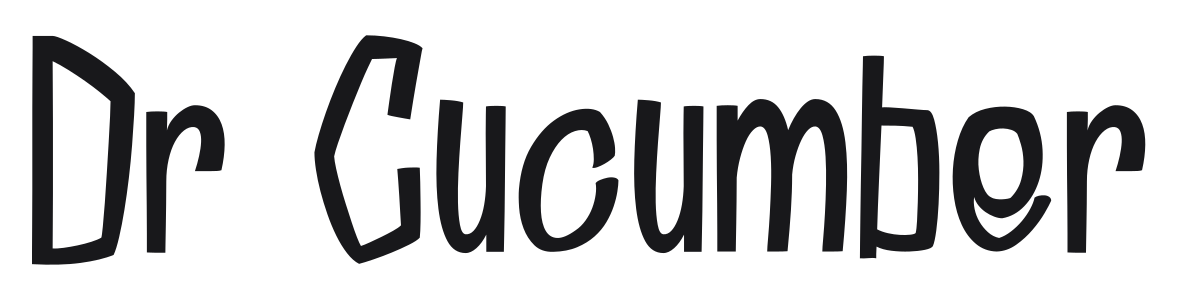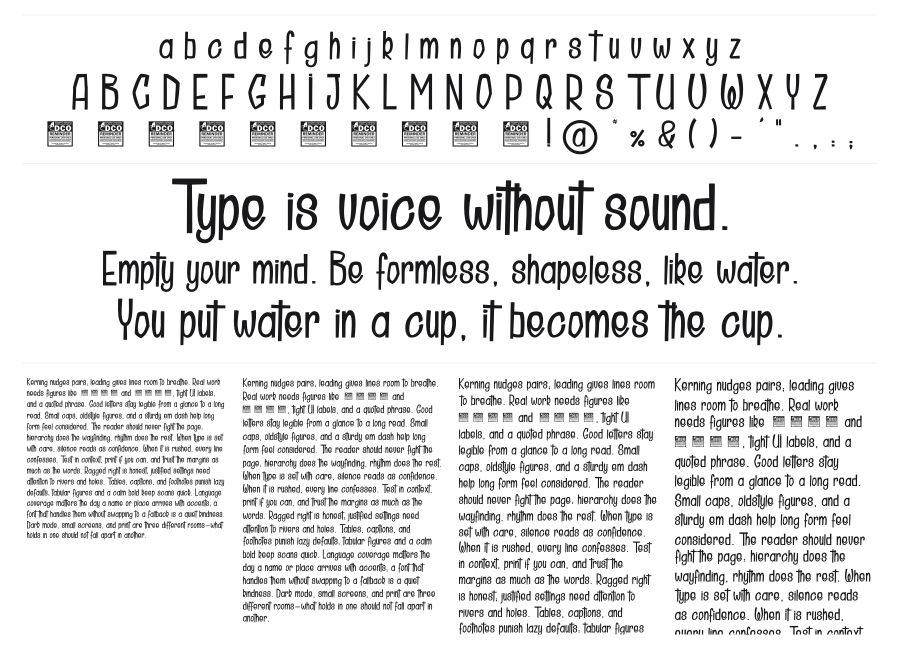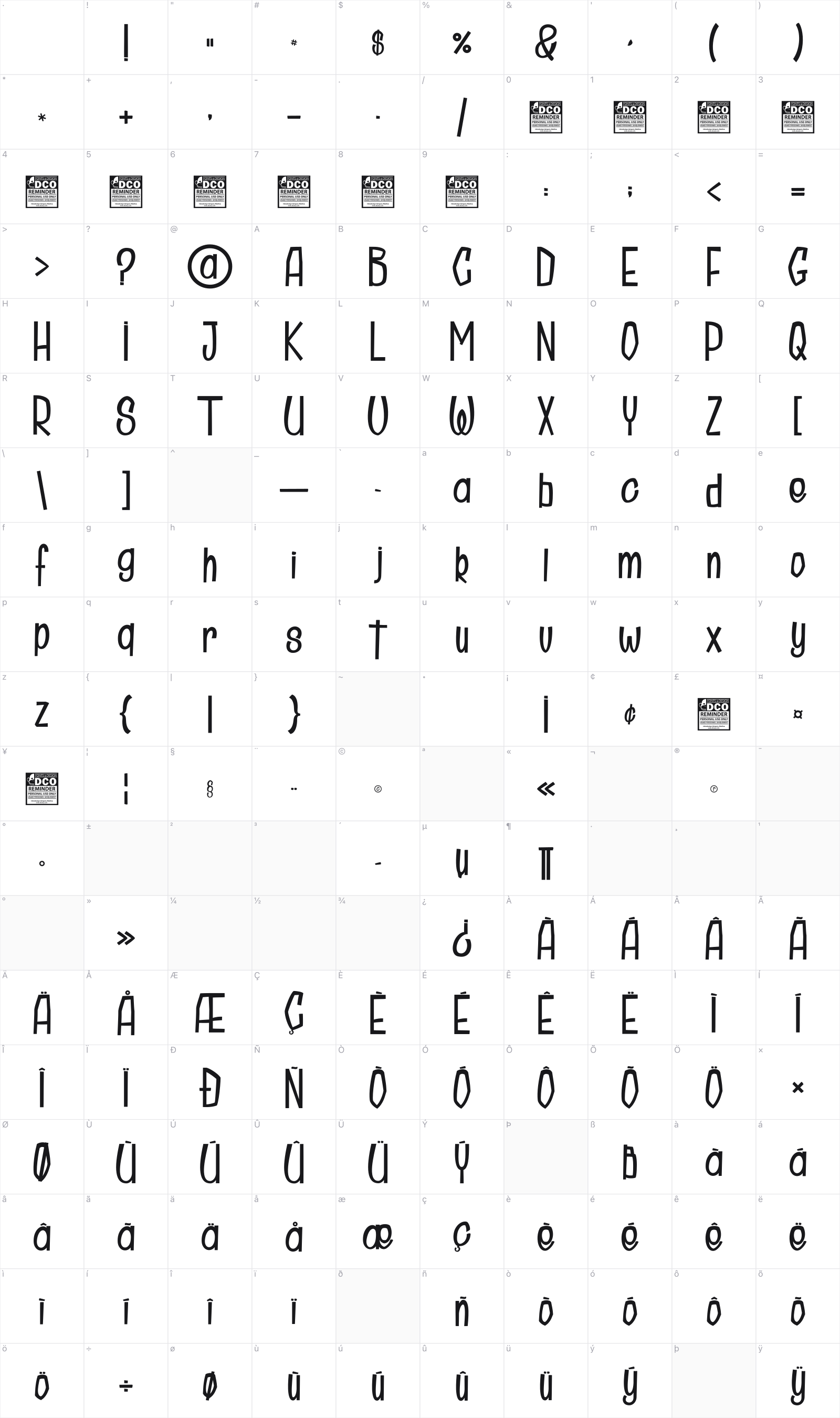
Dr Cucumber
Dr Cucumber is a bold, quirky display sans with tall proportions and an unmistakably hand-drawn irregularity that gives each character its own personality. The mix of rounded and flat terminals, slight stroke variation, and uneven rhythm reads as cheerful and informal without feeling sloppy. It works well for children's media, casual branding, packaging, and anywhere a touch of playful character is needed.